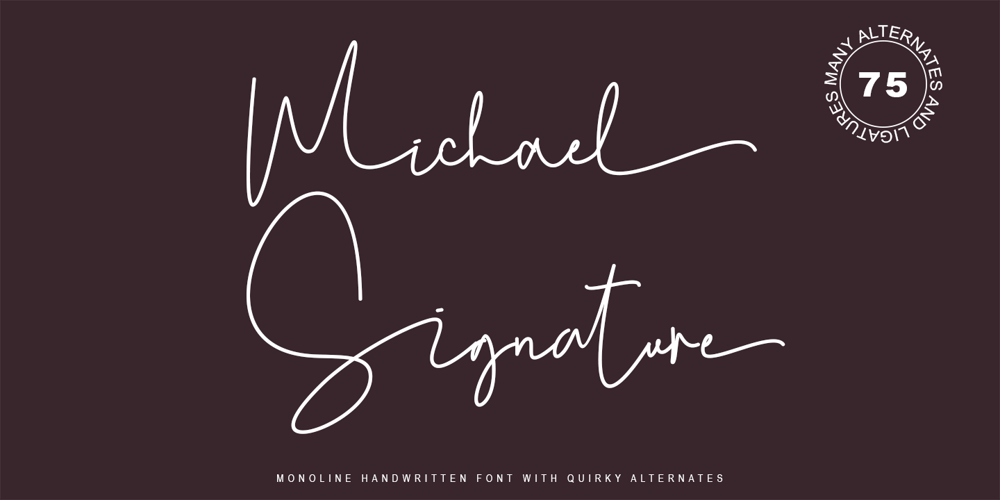
Michael Signature Font Family was designed by Stefani Tri Rosa Setiati Christiana and published by Stefani Letter. Michael Signature contains 2 styles and family package options. Michael Signature feels just as charming and elegant. This stunning Monoline script font is a stylish homage to classic handwriting. It features a varied baseline, smooth lines, gorgeous glyphs, and stunning alternatives. This font is PUA-coded which means you can access all the amazing glyphs and swashes with ease! It also features many special features including glyphs and alternate ligatures so that it displays natural and original handwriting.